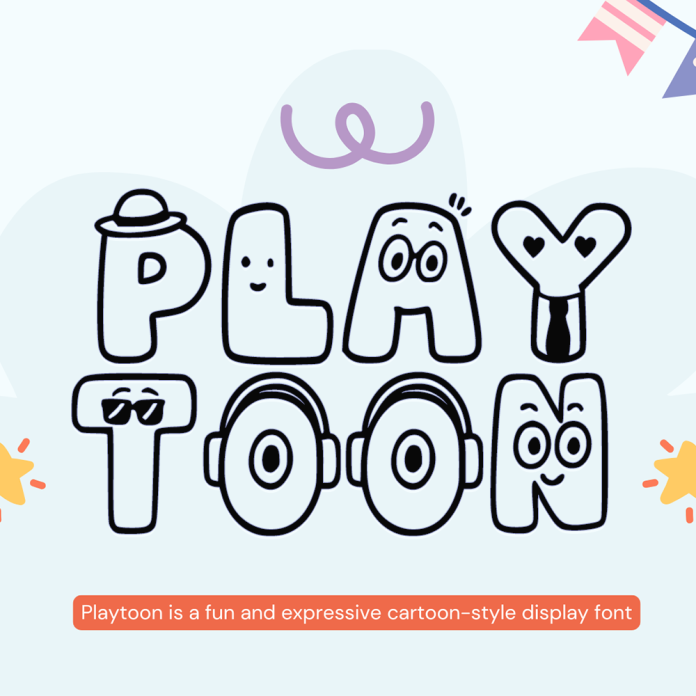
Playtoon is a fun and expressive cartoon-style display font, where every letter comes to life with quirky faces, cute accessories, and doodle-like charm. Perfect for kids' projects, comics, toy packaging, educational posters, or any design that needs a cheerful, playful touch.